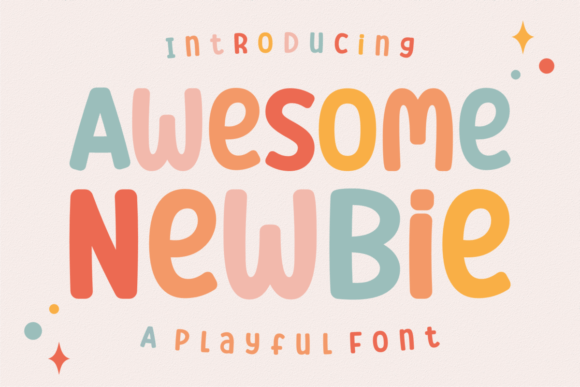
Looking for a font that will make your designs stand out? Look no further than Awesome Newbie Font! This playful and bold display font is the perfect addition to any designer's toolkit. Created by Rizkky (7NTypes), Awesome Newbie is sure to bring a smile to your face with its chubby characters and lighthearted nature.
This font is all about fun and creativity, making it perfect for any project that needs a touch of whimsy. Use it for logos, posters, invitations, or anything else that needs a bit of personality. With Awesome Newbie, your designs will truly come to life.
Whether you're a professional designer or just starting out, Awesome Newbie is a must-have in your fonts library. Its versatility and eye-catching style make it the perfect choice for any project. So why wait? Download Awesome Newbie today and see what all the fuss is about!